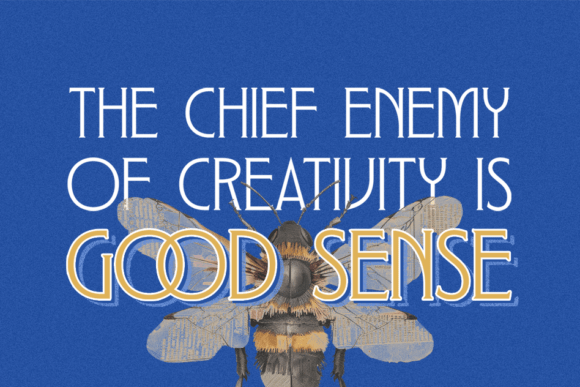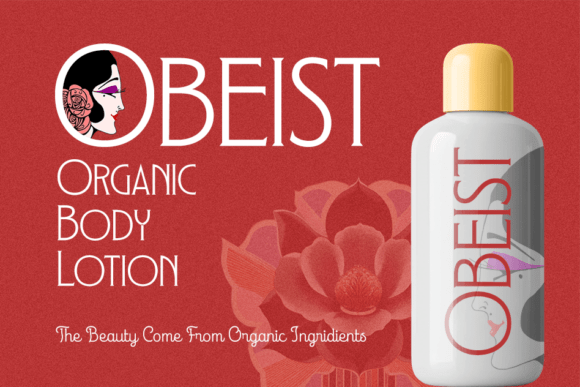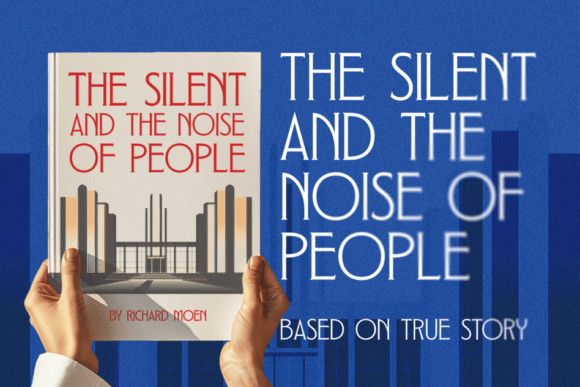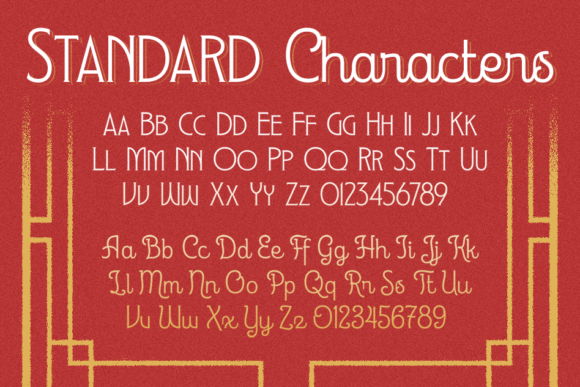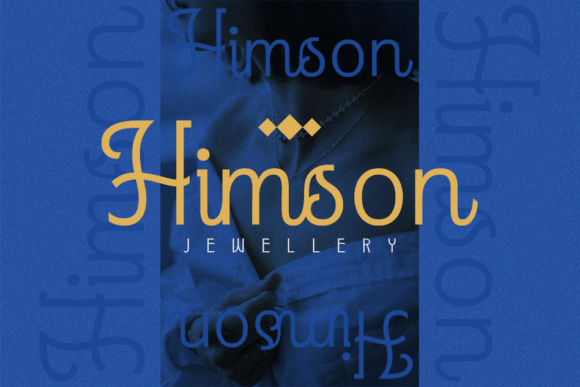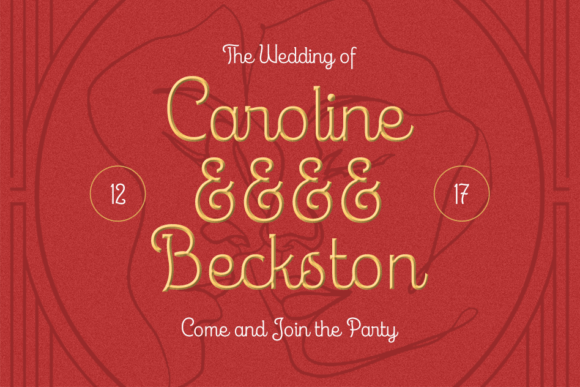
Introduction to Hominer Font
Have you ever been scrolling through design boards, searching for the perfect font to elevate your creative project, only to stumble upon a hidden gem that sparks inspiration? For designers, discovering a high-quality font can be a game-changer, and today we’re excited to introduce you to the Hominer Font – a stylish duo that’s sure to become your new favorite design resource.
Imagine a font that effortlessly combines vintage sophistication with playful flair, transporting your audience to a bygone era of glamour and nostalgia. The Hominer Font duo is the perfect blend of classic Art Deco aesthetics, featuring a tall, elegant serif and a charming retro script. With its transparent background and free download option, this versatile font is ready to elevate your designs, from branding and posters to editorial and more.
Key Features of Hominer Font
- High-quality design resource suitable for various creative projects, including graphic design, digital art, and typography.
- Available in a transparent background version, allowing for easy customization and integration into different design elements.
- Comes in 5 different font styles, including regular, bold, italic, bold italic, and a unique “hominer” style, offering versatility for creative projects.
- Each font style is available in 3 different sizes: 18px, 24px, and 36px, providing flexibility for use in various design contexts.
- Designed with high-resolution graphics, ensuring crisp and clear text display, even at larger sizes or in high-resolution print materials.
Honest Review: Hominer Font
As a designer, I’m always on the lookout for high-quality design resources that can elevate my creative projects. Recently, I had the chance to work with the Hominer Font, and I’m excited to share my honest review with you.
Here are some things that I loved about the Hominer Font:
- ✨ High-quality design: The Hominer Font has a clean and modern design that makes it perfect for a wide range of creative projects.
- ✨ Transparent background: The font’s transparent background makes it easy to customize and use on different backgrounds.
- ⚠️ Limited character set: The Hominer Font has a limited character set, which may not be suitable for projects that require a wide range of characters.
- ⚠️ Not suitable for small text: The font may not be the best choice for small text due to its large size and limited legibility.
Overall, I’m impressed with the Hominer Font and its potential to elevate my creative projects. While it has some limitations, I believe it’s a great resource for designers who are looking for a high-quality, free font.
To get the most out of the Hominer Font, use it in combination with a transparent background to create a modern and sleek look. You can also experiment with different font sizes and styles to add visual interest to your design.
The Hominer Font is perfect for use in logos, branding materials, and other design elements where a high-quality font is needed. It’s also great for use in presentations and documents where a clear and readable font is required.
Compared to Hominer Font, Open Sans offers a more versatile font family with a wider range of styles and weights. While Hominer Font has a unique, handwritten feel, Open Sans is more suitable for body text and large-scale applications.